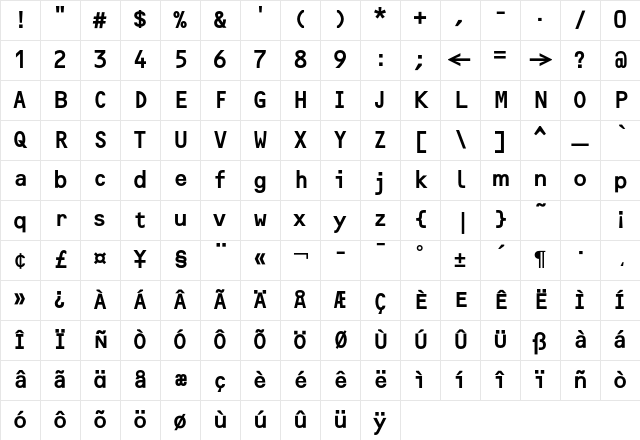
Complete F2FOCRBczyk LT Std Regular Bold glyph index. Displaying only characters natively supported by F2FOCRBczyk LT Std Regular Bold font.
F2FOCRBczyk LT Std Regular is a composed and adaptable typeface that performs quietly and consistently across a wide range of design contexts. Its bold stroke weight gives it real presence on the page.